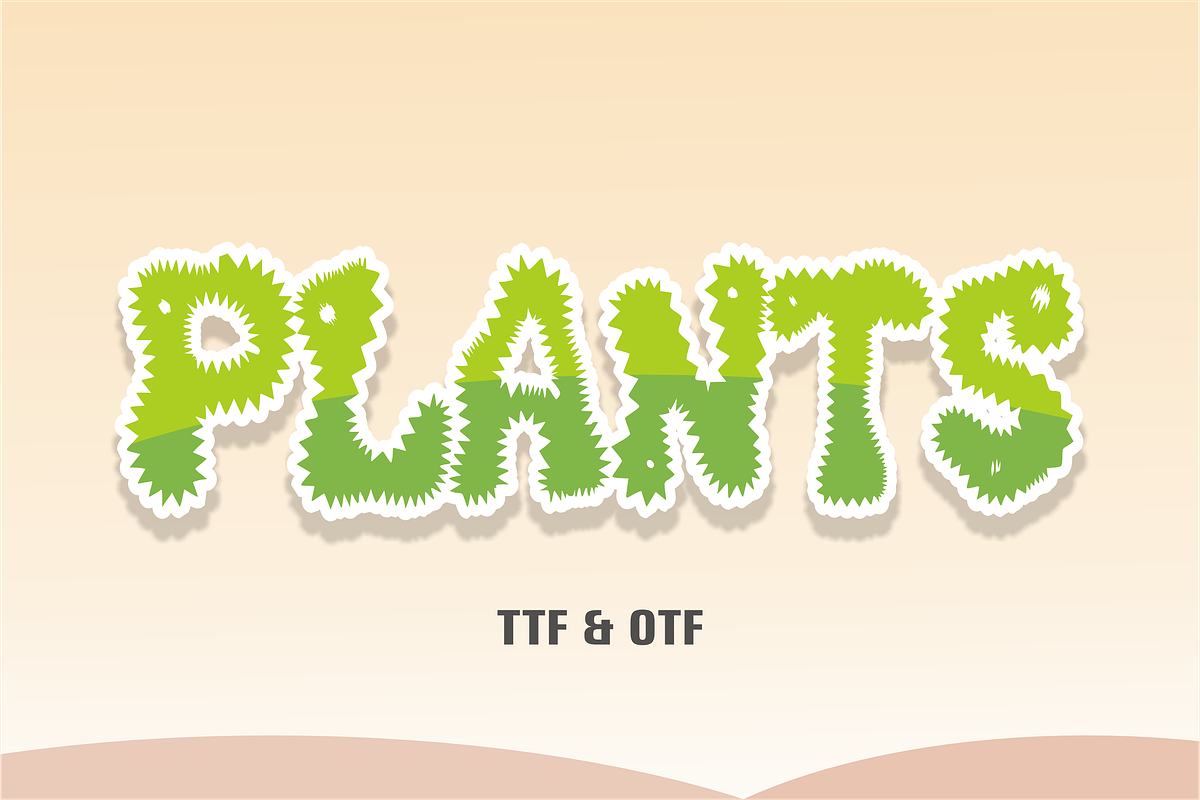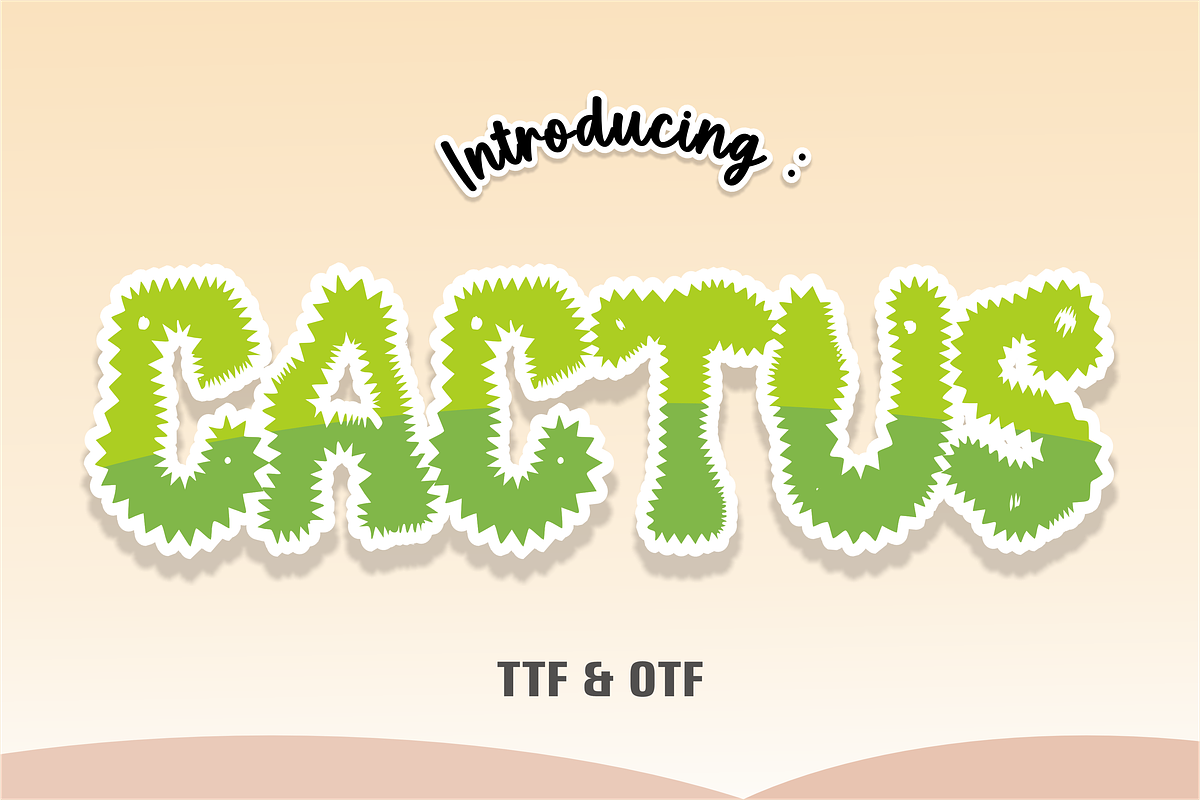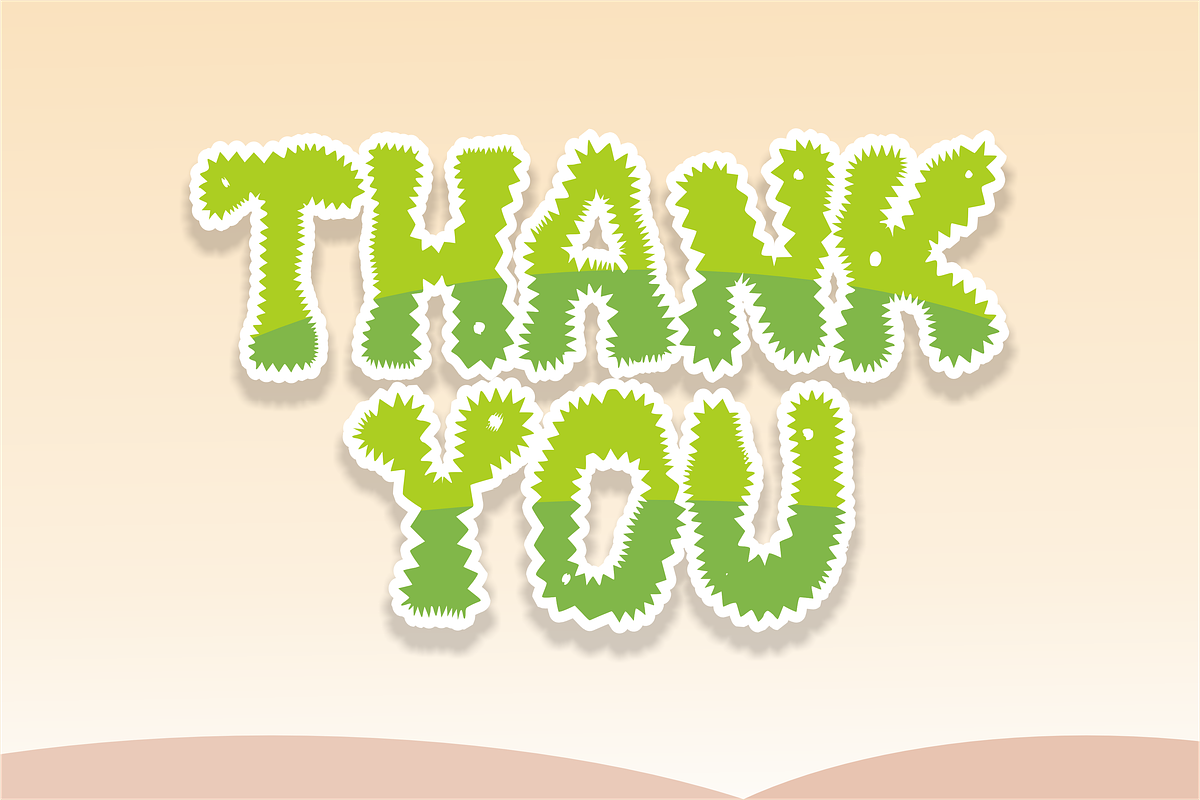
Cactus - Cartoon Font Types
Meet Cactus Font: robustly textured, tousling the line between beauty and intrigue. This riveting typeface is reminiscent of a desert bloom, combining an unexpected spikiness with an undeniably mesmerizing charm. It’s more than just a font – it’s a tribute to the resilience and arresting allure of nature’s own designs. A perfect pick for those seeking a typeface that entices and endures, much like the resilient desert flower it’s named after. Choose Cactus Font, where the beauty of the wild meets the art of design.